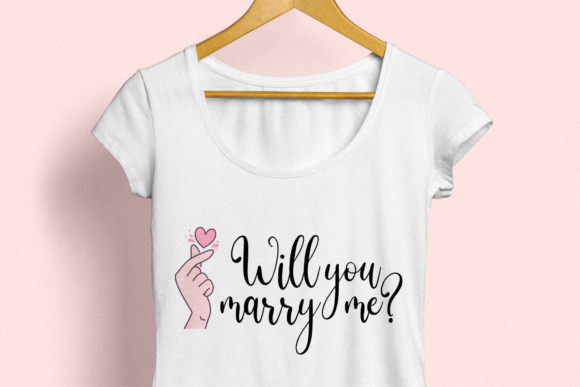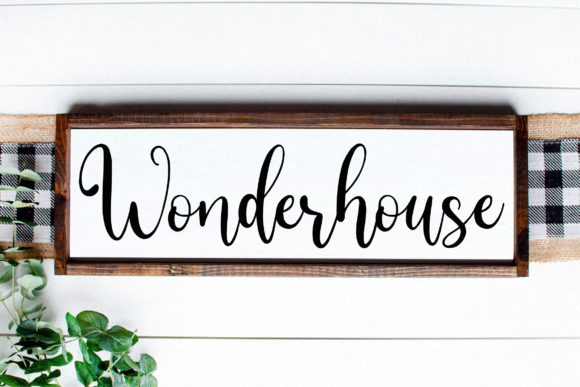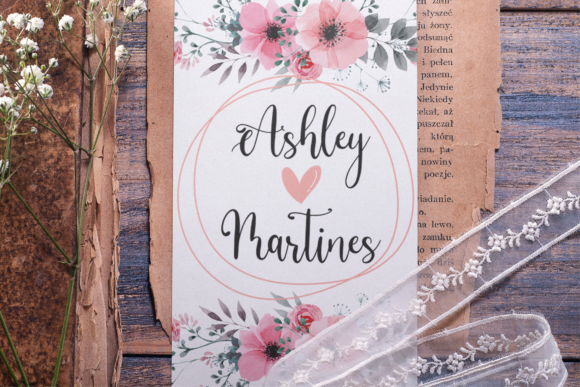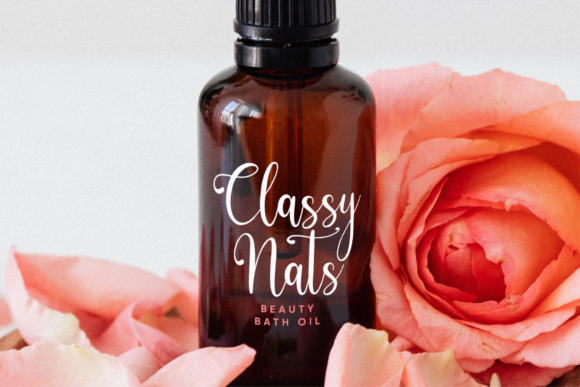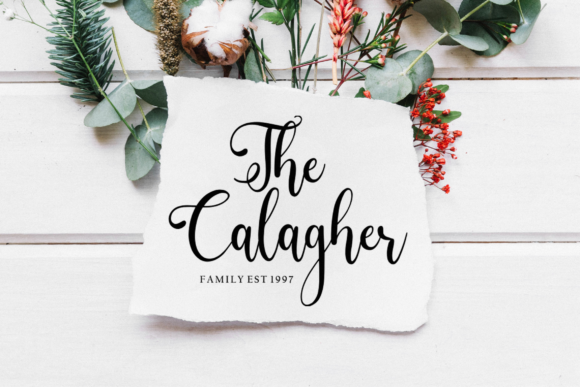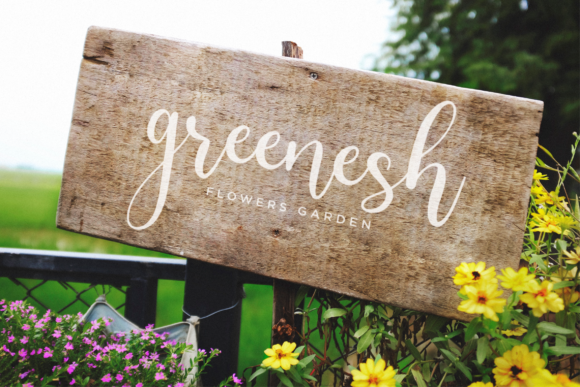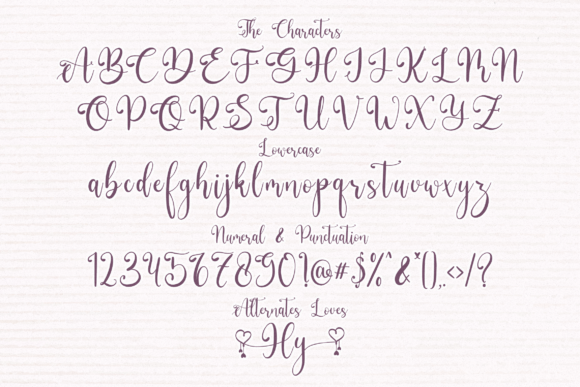
Hellophiy Font
About Hellophiy Font
Hellophiy is a delicate and chic handwritten font. It is perfect for product packaging, branding project, magazine, social media, wedding, or just used to express words above the background.